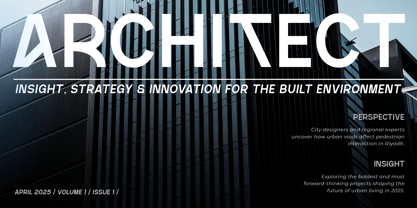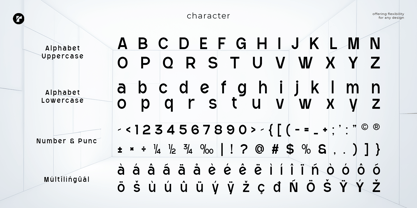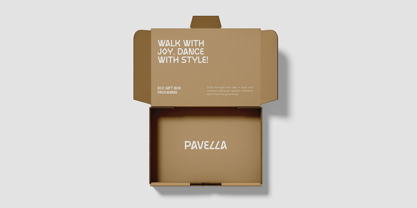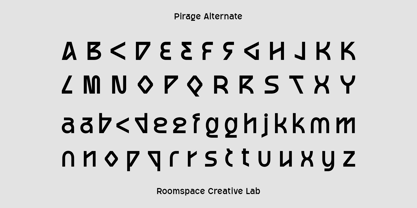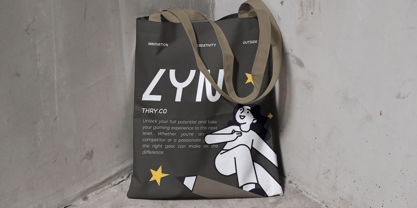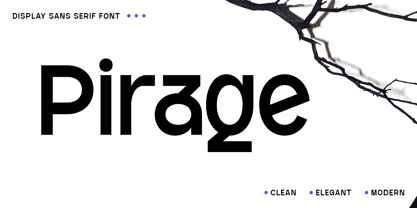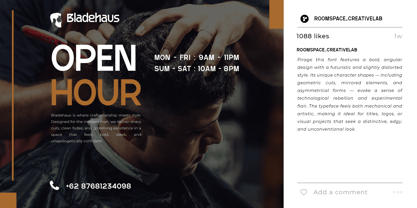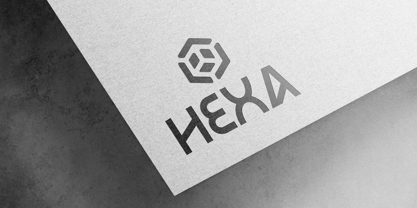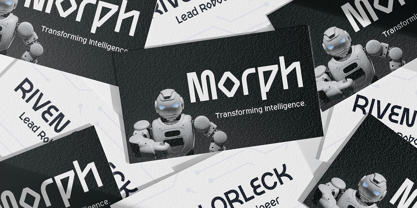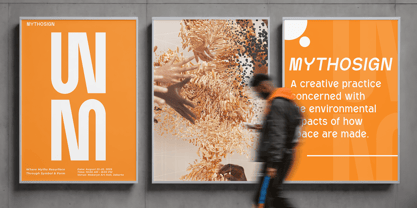
Pirage
by Jafar07
The Pirage Font Family was designed by Bakhrudin Ja'far and published by Jafar07. Pirage contains 2 styles and family package options. More about this family
Pirage is a modern display sans-serif font built on clarity, precision, and geometric confidence. It’s intentionally crafted to feel clean and commanding, while still bringing a dynamic, cutting-edge energy to whatever platform it touches. The overall vibe is minimal yet distinct its sharp verticals, closed counters, and asymmetrical balance give it a technical sleekness that feels futuristic without sacrificing legibility. With high legibility and visual impact, Pirage thrives in professional contexts where sharpness and control are key.
The letterforms lean toward the square and modular, with unexpected details such as custom terminals and alternate glyphs that offer extra attitude for digital innovation, branding systems, and UI-heavy environments. This font isn’t made to sit quietly it’s meant to lead in settings like tech presentations, app interfaces, startup branding, and architectural proposals. Pirage embodies the DNA of modernist typography but strips away the excess to stay lean, agile, and unmistakably relevant for 21st-century design.